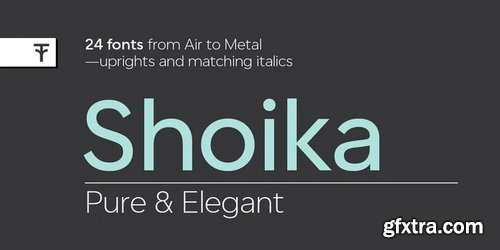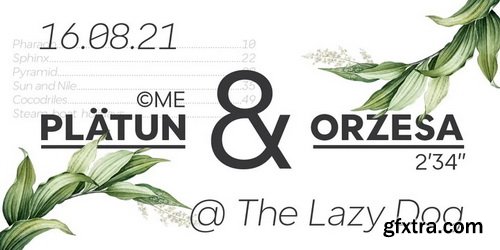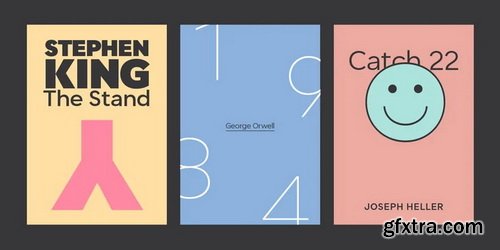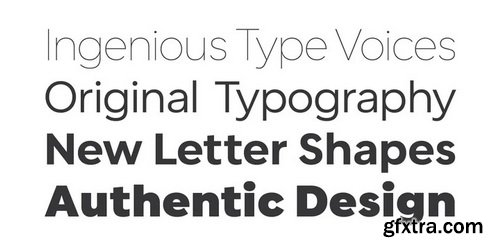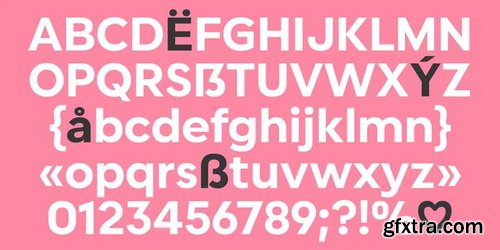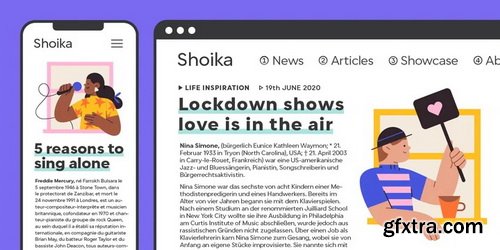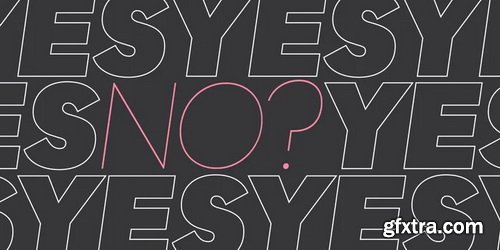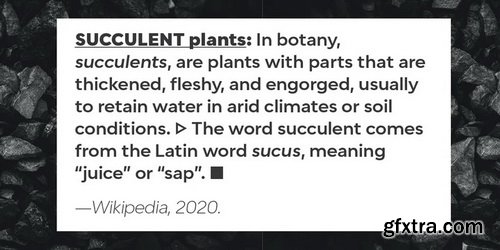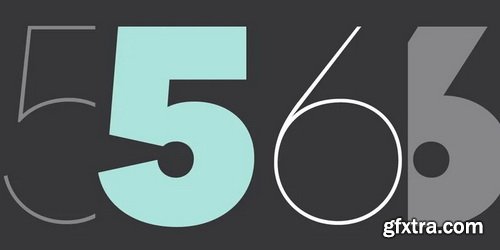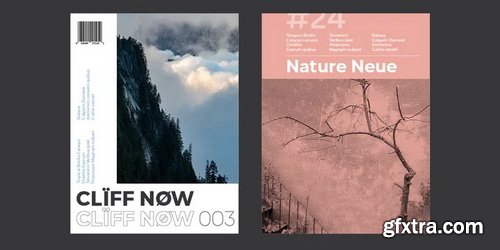
Shoika Font Family
Shoika is a celebration of geometry. It’s a typographic quest for purity with a touch of hidden gems in the form of unique details and characters. Shoika is perfect for the modern designer who needs a solid, refined and versatile font family for branding, UX, web, packaging and editorial jobs. The wide range of weights (24 fonts) starts in the delicate Air, goes on with the optimized for high-density screens Retina and finishes with the robust Metal. Shoika supports an extensive variety of Latin alphabet-based languages (over 200). It has been manually kerned and auto-hinted for enhanced performance on screen.